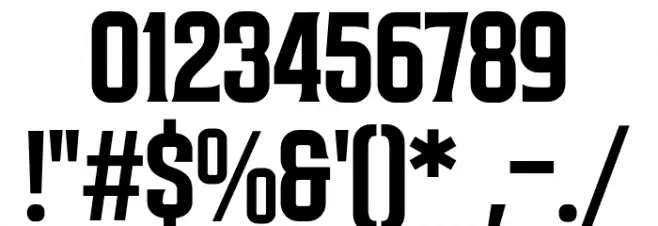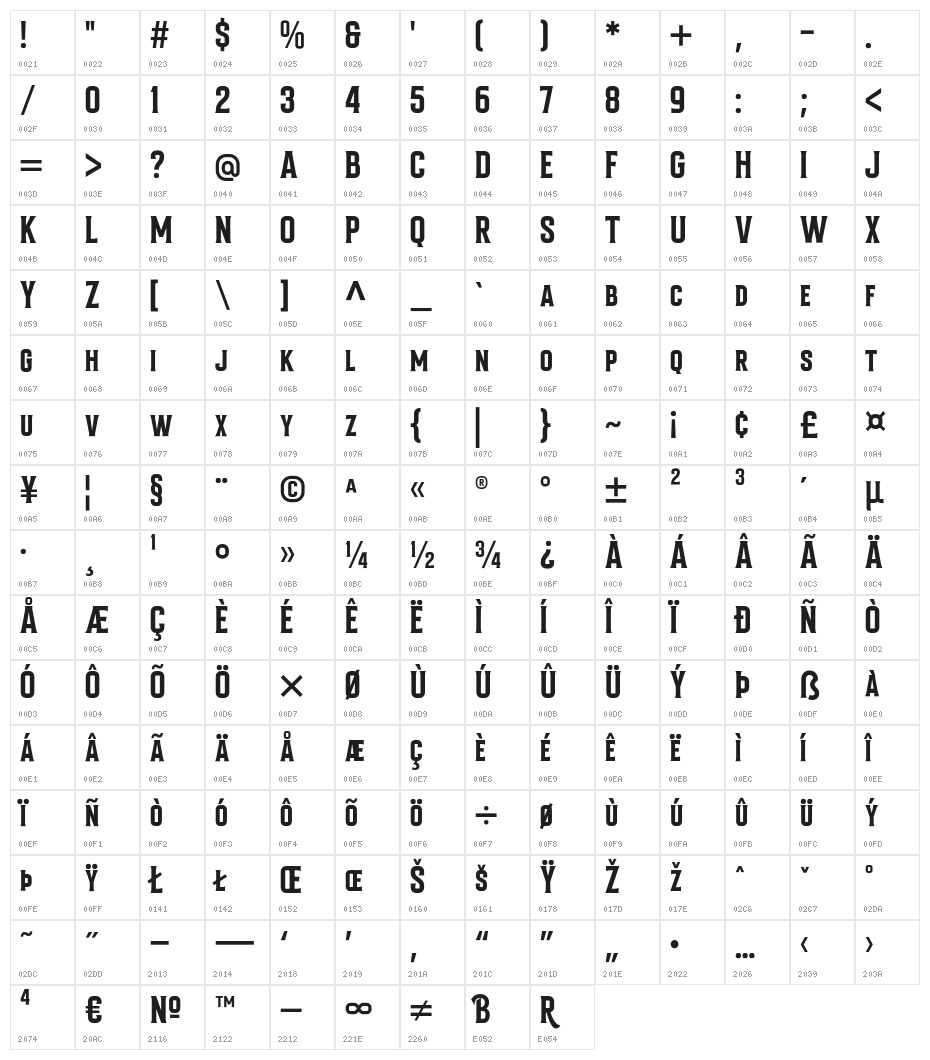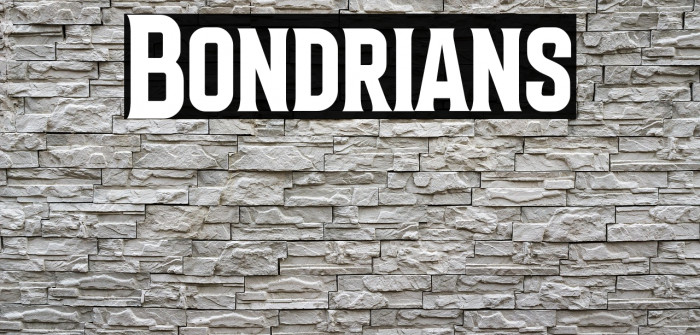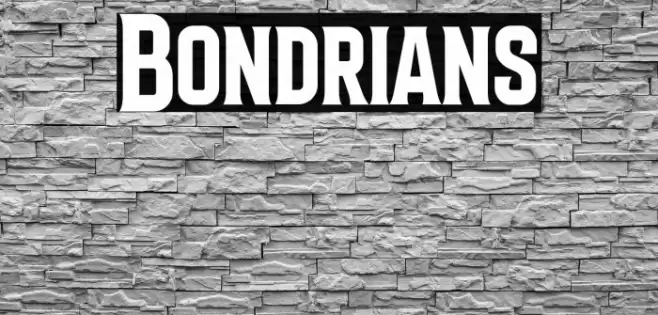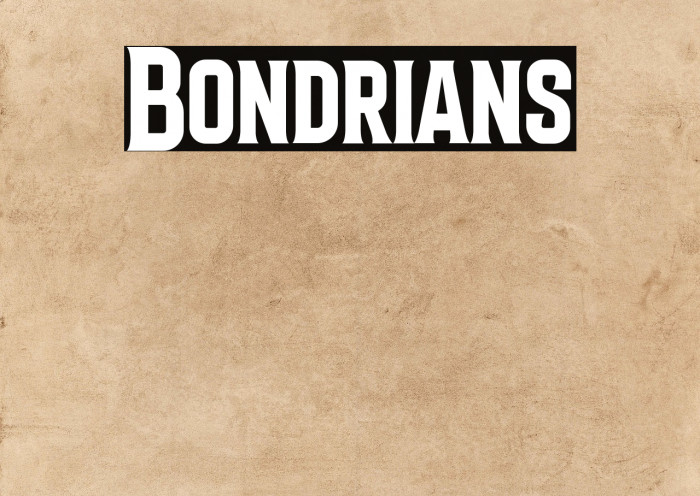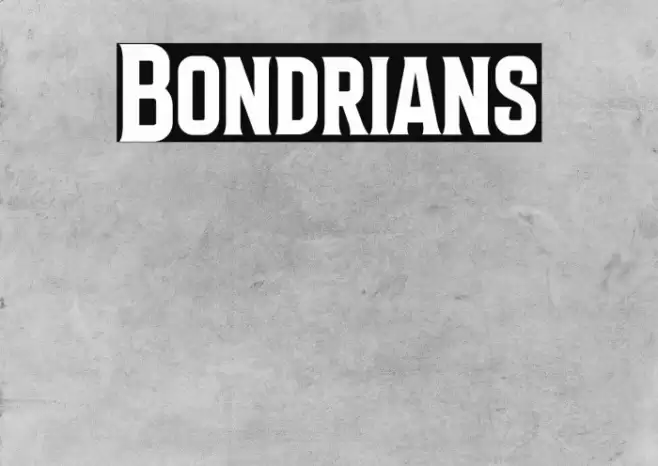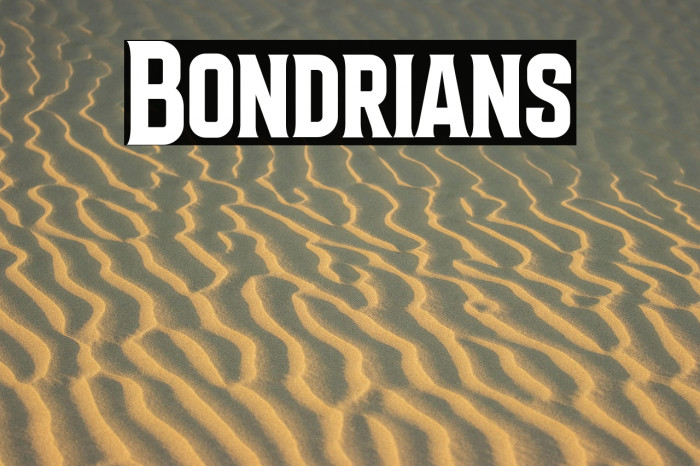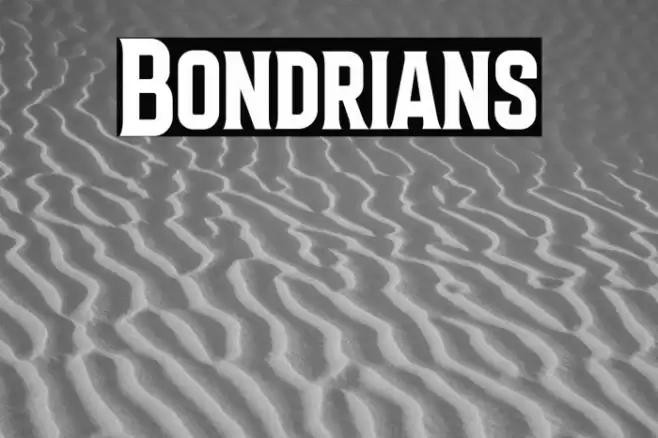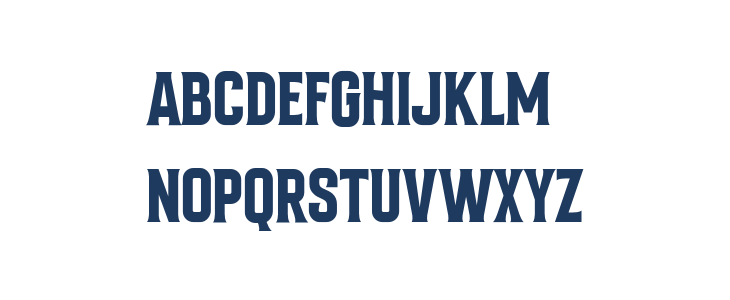
Bondrians Font
Bondrians Description
This font features a bold and striking design, characterized by its thick, uniform strokes and slightly condensed letterforms. The uppercase letters are particularly prominent, with a strong presence that commands attention. The lowercase letters maintain the same boldness, ensuring consistency throughout the typeface. The numerals are equally robust, making them stand out in any context. Special characters are designed with the same bold style, ensuring they integrate seamlessly with the rest of the font. This typeface is ideal for projects that require a strong visual impact.